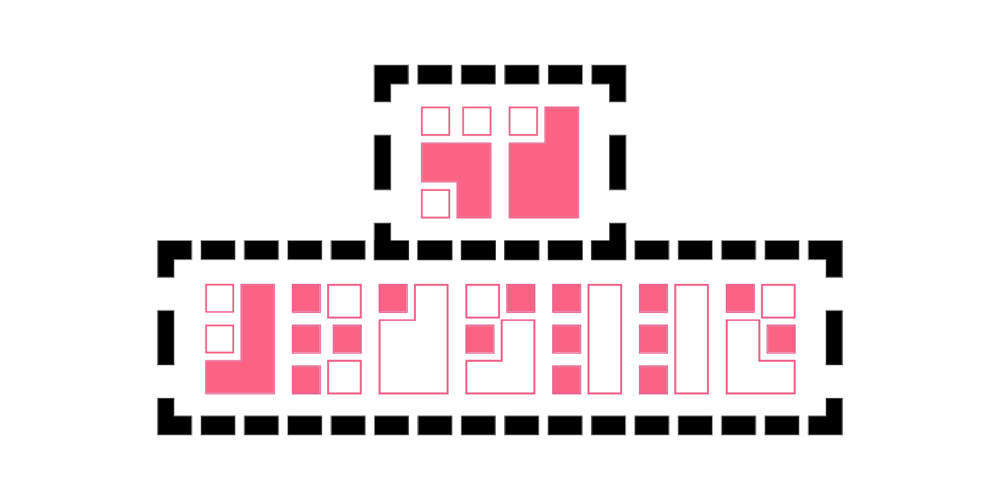
Ma Braille Font Family was designed by Michel Kern and published by Echopraxium. Ma Braille contains 1 styles and family package options. The “Ma” in “Ma Braille” is used as a minimalist way to say “Negative Space”. “Ma” in japanese arts is an “esthetical usage of emptiness”.Thus this font explicits the negative space around visible braille dots in each glyph. A. Font user guidea.1. Lowercase glyphs { A..Z }In these glyphs, dots are represented as “black squares” while the negative space is displayed as 1 or 2 white filled polygons.a.2. Uppercase glyphs { a..z }In these glyphs, dots are represented as “white squares” while the negative space is displayed as 1 or 2 black filled polygons.a.3. Digits: they are just the same than a..j, but the “North US version” is also provided in ascii codes 0xE0..0xE4 (1..5) and 0xE7..0xEB (6..0).a.5. “Dashed Border”: a.5.1. “Black dashed” border glyphs; { £, ¥, µ, Â, Ä, Ê, Ë, Î, Ï, Ô }a.5.2. “White dashed” border glyphs; { Ö, Õ, °, ô, ö, î, ï, û, u, õ }B. PostersPoster 1: “Font Logo” version 1, it displays “Ma Braille” text surrounded by the “black dashed border” glyphs.Poster 2: “Font Logo” version 2, it displays “MA” glyphs in big size and smaller “Braille” glyphs within “M” and within “A” as well.Poster 3: the classical pangram to test a font “The Quick Brown Fox jumps over the Lazy dog”.Poster 4: Article 1 of the Human Rights: All human beings are born free and equal in dignity and rights. They are endowed with reason and conscience and should act towards one another in a spirit of brotherhood.Poster 5: the “Glyph set” (Border glyphs not included) with A..Z, a..z, digits and special characters.